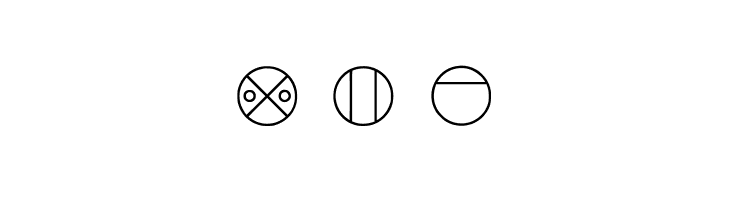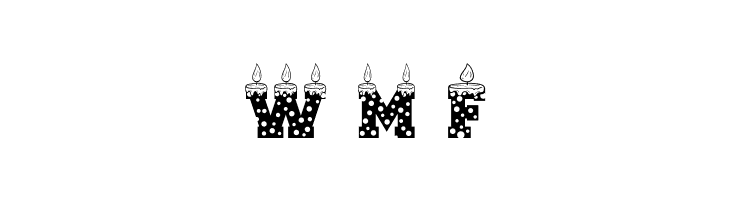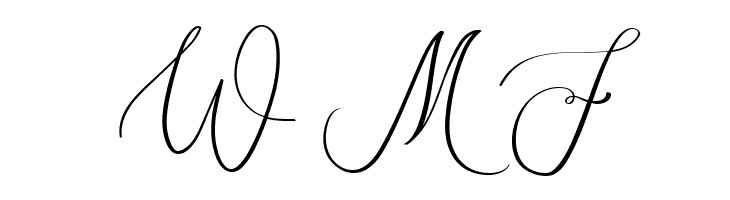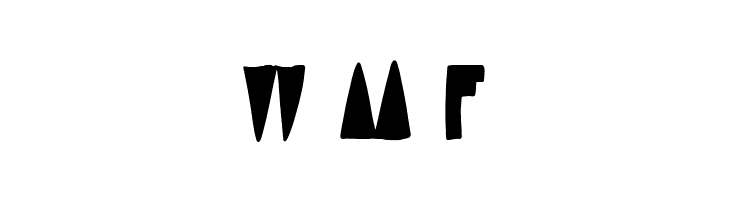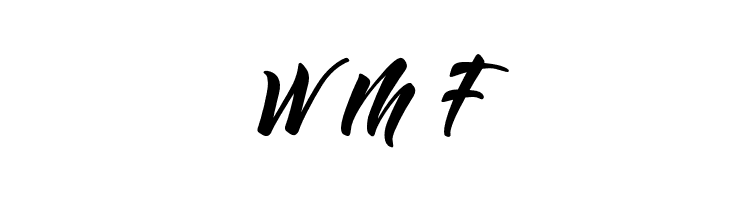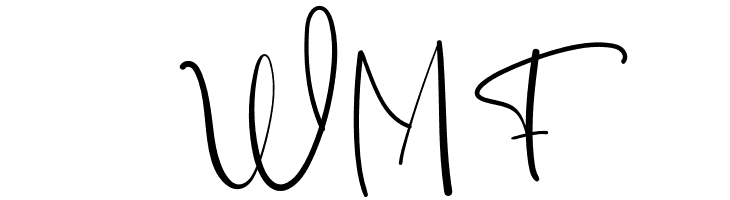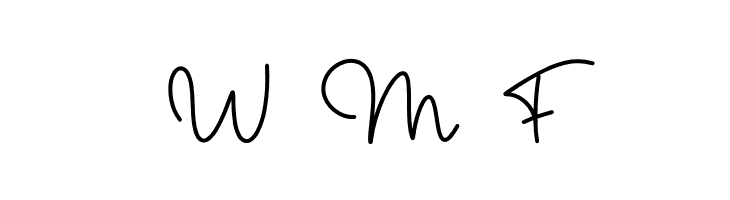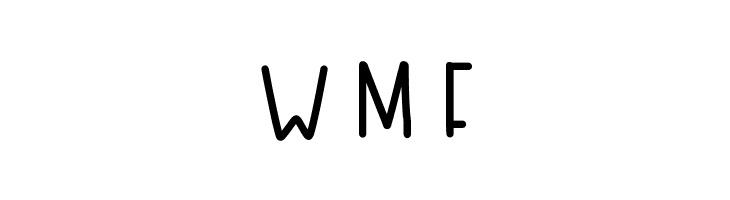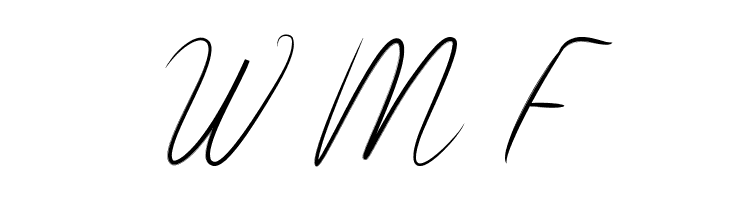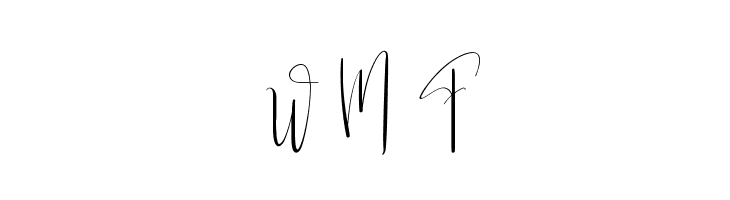
A bold, geometric font with a modern and angular design.
A bold, modern serif font with a strong, impactful presence.
A bold, playful font with a handwritten style and rounded edges.
A graceful and flowing script font with elegant, fluid letterforms.
A playful handwritten font with elegant, slender uppercase and rounded lowercase letters.
An elegant script font with flowing, decorative letterforms.
A dynamic and elegant script font with flowing, bold letterforms.
A playful, handwritten font with tall, narrow letters and a casual style.
A playful, bold font with rounded, bubbly characters.
A fluid, elegant handwritten script with smooth, flowing lines.
A playful, bold font with a whimsical and slightly irregular design.
Playful monoline script with a handwritten style.
Playful handwritten font with rounded edges.
A bold, expressive script font with dynamic, cursive letterforms.
A bold, expressive script font with a handwritten, flowing style.
Elegant handwritten script font.
A lively and playful handwritten font with fluid strokes and a casual vibe.
A bold, playful font with irregular, hand-drawn characters.
A futuristic, circular font with geometric patterns and lines.
A sophisticated script font with flowing cursive letters and intricate swashes.
An elegant, flowing script font with delicate lines and graceful curves.
A playful handwritten font with smooth, flowing lines and whimsical flourishes.
A playful, whimsical handwritten font with heart embellishments.
A playful, candle-themed decorative font with polka dots and flames.
Playful handwritten sans-serif with tall, narrow letters and casual feel.
A playful, rounded font with a friendly and approachable style.
A playful, handwritten script font with a modern and whimsical style.
A playful handwritten font with a casual and friendly style.
A bold, geometric font with a modern and artistic style.
A flowing, elegant script font with graceful curves and playful flourishes.
A geometric, pixelated font with a retro, digital style.
A bold, expressive font with a handcrafted, artistic flair.
A bold serif typeface with high contrast and classic appeal.